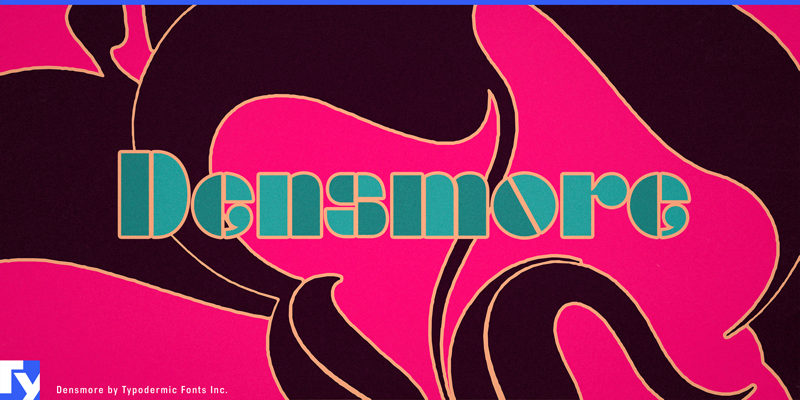
While Josef Albers was teaching at the Bauhaus in the 1920�s he developed the concept of using geometric shapes to create abstract alphabets such as Schablonenschrift and Kombinationsschrift. This kicked off a trend of Art Deco stencil typefaces, notably Futura Black. In the 1960�s�a designer for Elektra Records used similar circle and rectangle shapes the create a logo for the rock band, The Doors. This hand-drawn logotype has inspired a typeface called Densmore. In applications which support ligatures, a double lowercase o combination will automatically be replaced by a mirrored oo combo. There are 3 styles of Densmore: Regular, Blue and Pink. The Blue and Pink styles can be used to create layer effects: change colors, offset, experiment. This font includes a license that allows free commercial use: sometimes referred to as a desktop license. This allows you to install the font on a computer and use it to create posters, web graphics, game graphics, eBooks, t-shirts, videos, signs, logos and more. Read the license agreement for details. If you'd like to embed this font in an app, on the web or anything that's not covered by the desktop license agreement, visit the link below. You'll find distributors who offer different types of licenses, or you can contact me for help. https://typodermicfonts.com/densmore/ Also available at Creative Fabrica. |